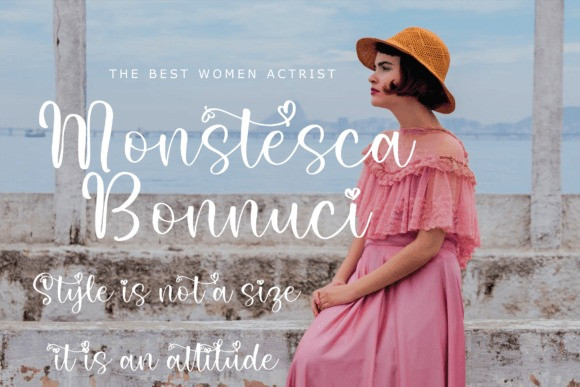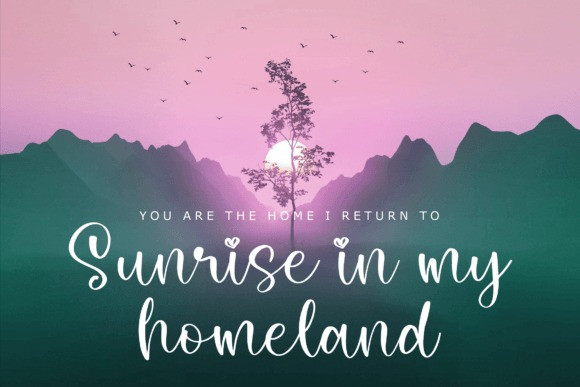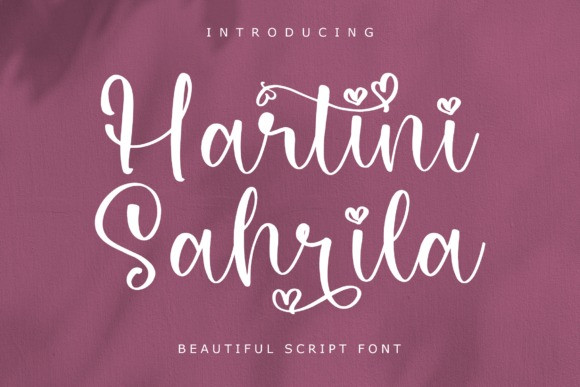
Hartini Sahrila Font
Hartini Sahrila – Beautiful Script Font suitable for any projects such as logos, branding projects, homeware designs, product packaging, mugs, quotes, posters, shopping bags, t-shirts, book covers, name cards, invitation cards, greeting cards, labels, photography, watermark, special events, and all your other lovely projects that need a beautiful script taste.